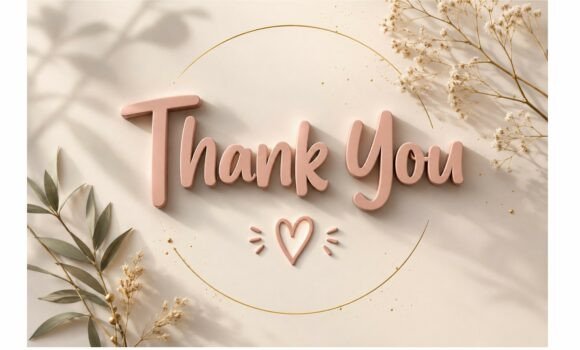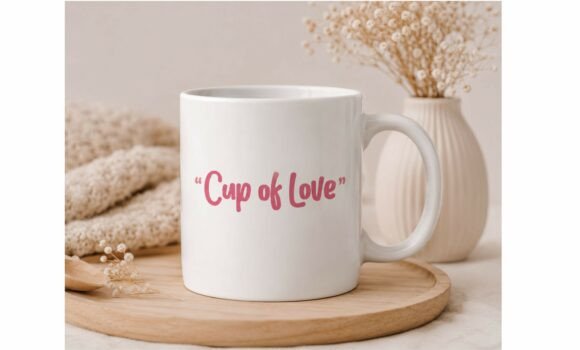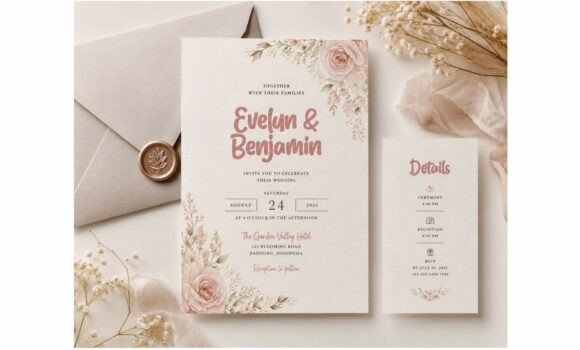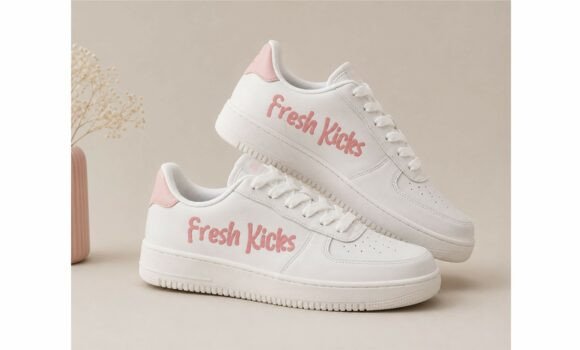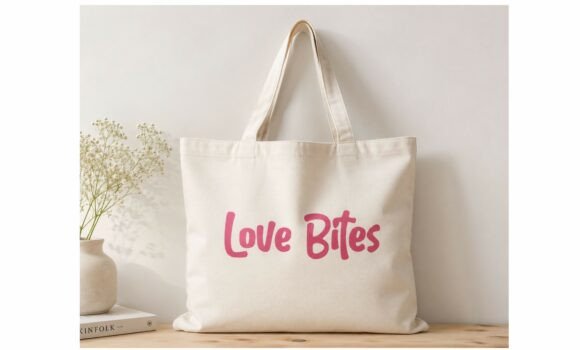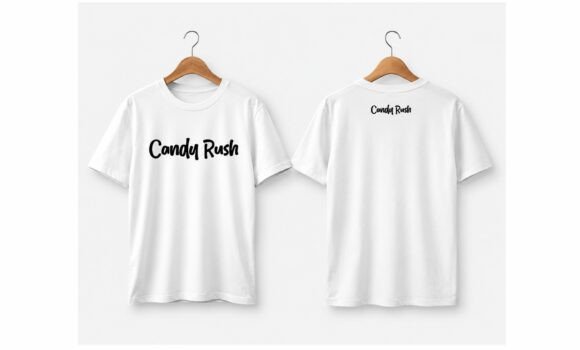
Introduction to Creamy Sugar Font
Creamy Sugar is a sweet and playful handwritten font with a soft, cute, and modern style.
This font is perfect for creating eye-catching designs with a warm and friendly touch Its smooth curves and bold handwritten look make it ideal for branding, logos, packaging, mugs, t-shirts, invitations, social media, stickers, Cricut projects, and more.